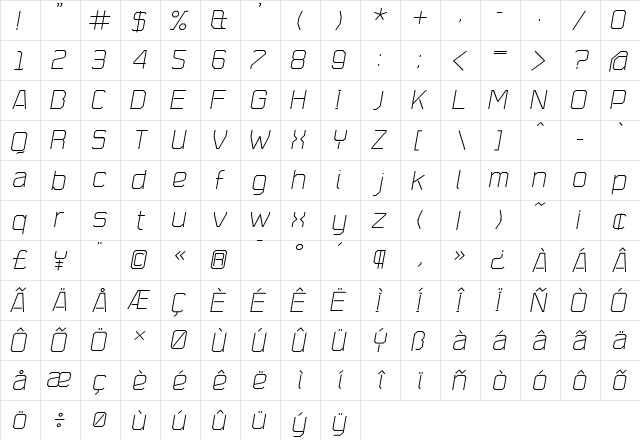
Plotta Italic
Design Context for Plotta Typeface
Plotta offers clean, dependable letterforms without strong stylistic allegiance, making it a practical choice for designers who need flexibility. Its italic angle brings a sense of urgency and motion to the letterforms.
Pro Tip: Use Plotta for emphasis, pull quotes, and subheadings where its slanted energy can add rhythm to the layout.